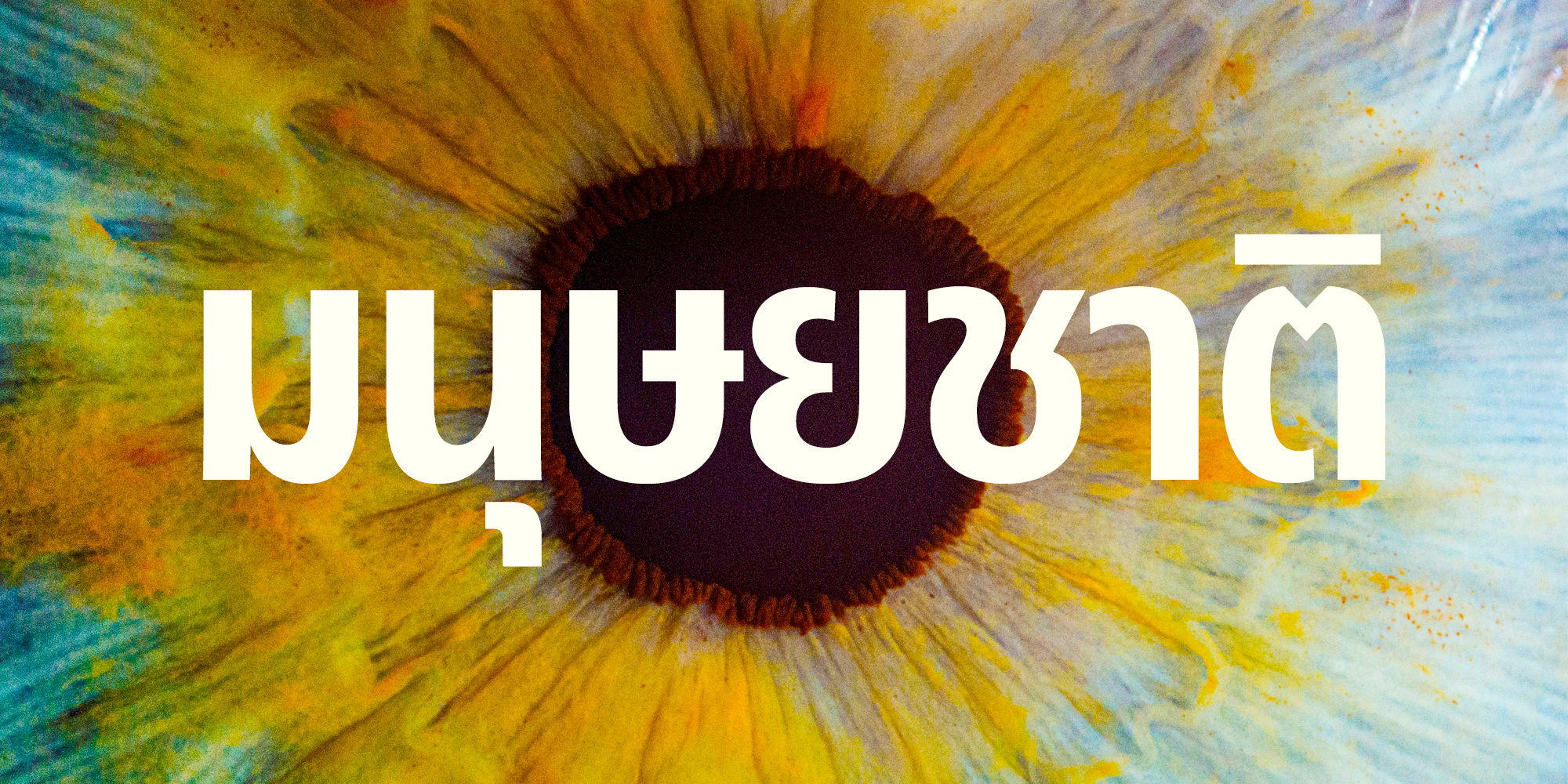
Human Narrow ไทย
ff fi fl ffl
Standard Ligaturesliga
12345/67890
Fractionsfrac
x1+y3=z58
Superscriptsups
H2O K2SO4
Scientific Inferiorssinf
1st 2nd 3rd
Ordinalsordn
[H] H@ ¿H
Case-Sensitive Formscase
0123456789
Tabular Numeralstnum
Human Sans is a humanist sans serif years in the making, built from the ground up to serve as a true typographic workhorse. The typeface began as an evolution of an earlier Positype design but was drawn and redrawn, crafted and recrafted until every decision was resolved on its own terms.
Three widths are provided: Standard, Narrow, and Condensed. The Narrow width occupies the practical middle ground where condensed is too tight and standard carries too much horizontal presence. Eight weights from Light to Ultra with matching italics span each width.
Writing system support covers Latin, Cyrillic, Greek, Japanese, Khmer, Lao, and Thai, with all writing systems besides Japanese available in all three widths. The Japanese extension is a fully realized offering: complete JIS X 0208 Level 1 and Level 2 coverage at 6,707 kanji, full hiragana and katakana, halfwidth katakana, vertical typesetting with vert, vrt2, and vkna features, halt and palt for automatic punctuation spacing, proportional kana widths, and contextual half-width spacing. This is not a limited kanji subset or a Latin family with Japanese characters appended to it. It is a complete Japanese typeface built to the same standard that Japanese typographers expect from domestic foundries. The Khmer extension was built with a complete OpenType shaping pipeline. Human Sans is designed to work across languages, not as an afterthought but as a foundational principle.